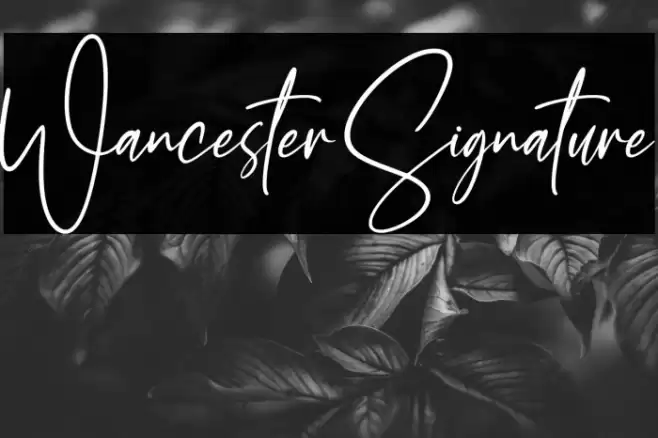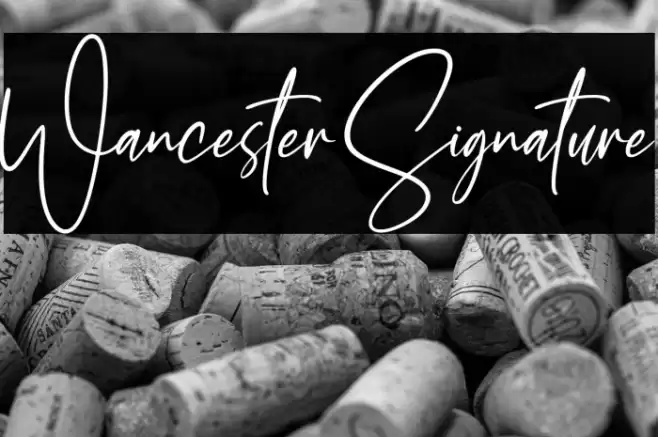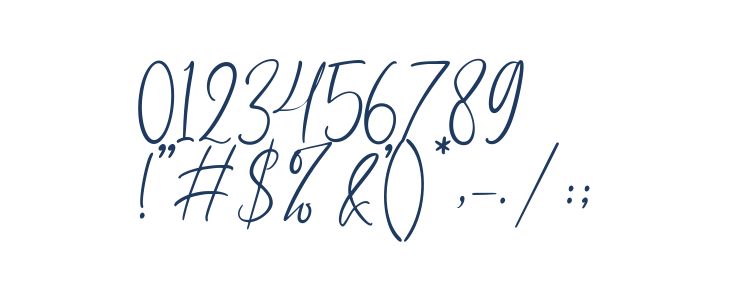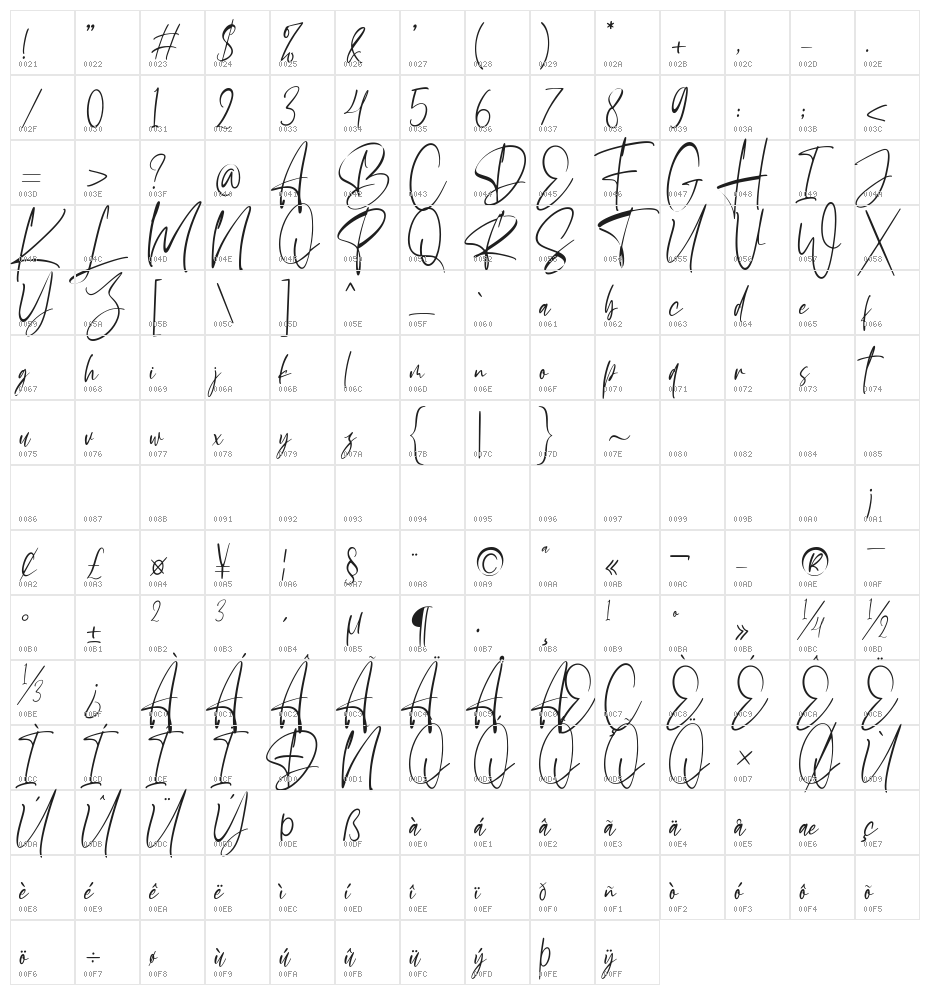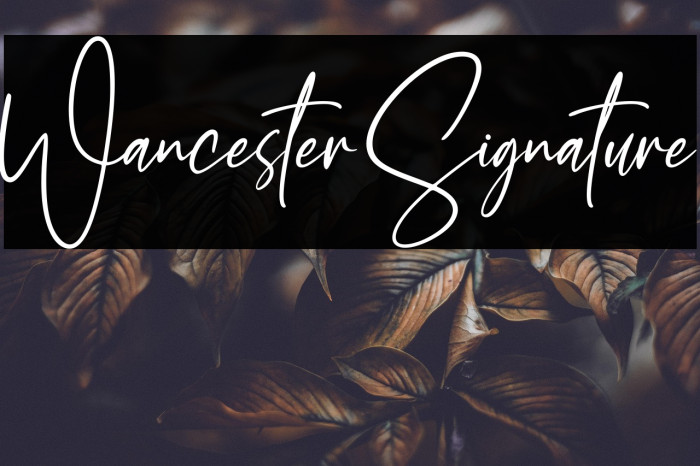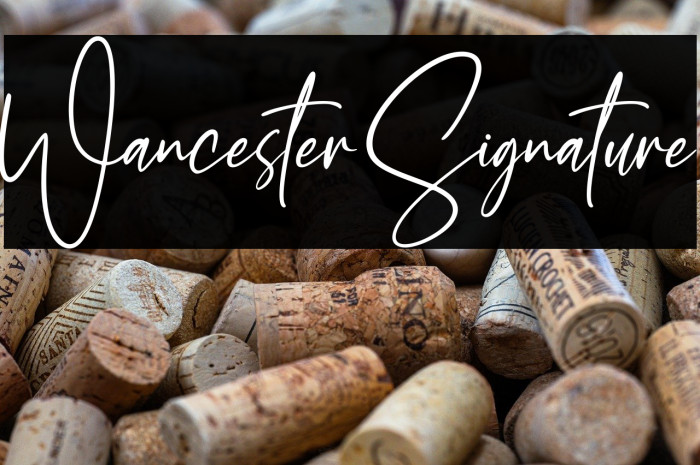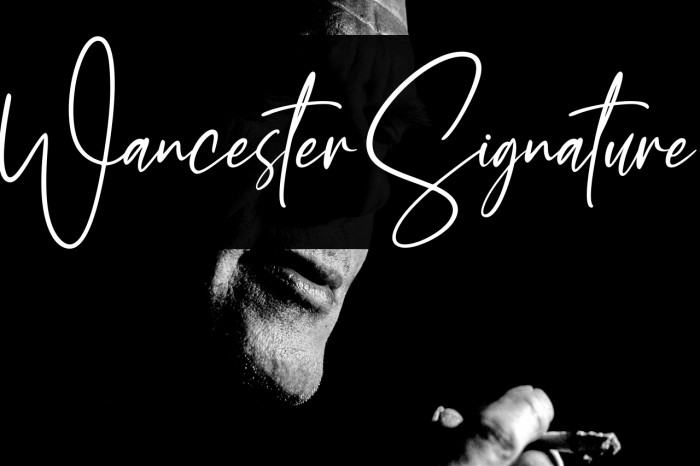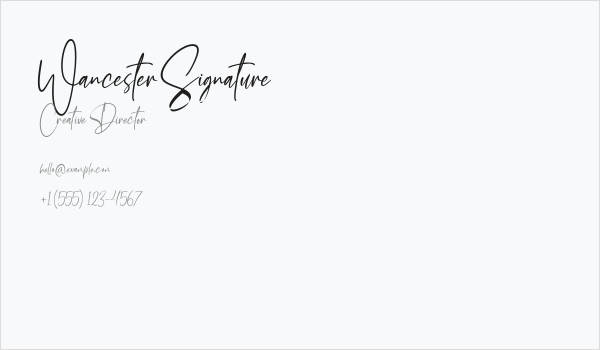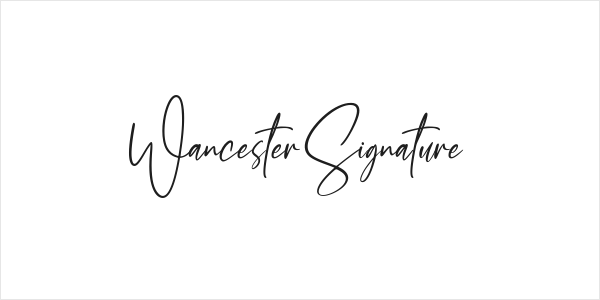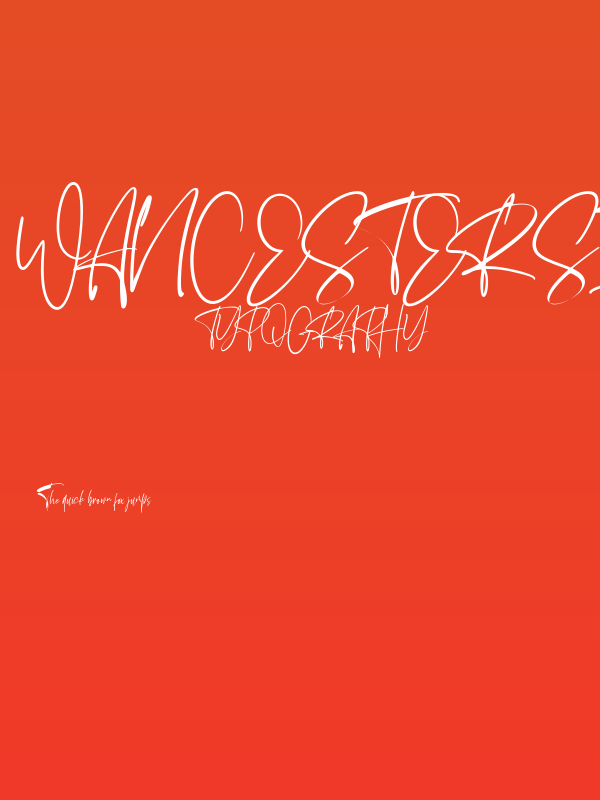
Wancester Signature Font
Wancester Signature Description
This font exudes a modern and elegant handwritten style, characterized by its fluid and cursive letterforms. The strokes are smooth and connected, giving it a natural and personal touch. The uppercase letters are bold and prominent, while the lowercase letters maintain a consistent flow, enhancing readability. The numerals and special characters are crafted with the same attention to detail, ensuring a cohesive look across all glyphs. This font is perfect for projects that require a personal or artistic flair, such as invitations, branding, or creative designs.
A modern, elegant handwritten font with fluid, cursive letterforms from Uncategorized fonts.
- Proposed Projects: Ideal for wedding invitations, personal branding, artistic projects, and creative designs.
- Overall Style: Modern, Elegant
- Use Case: Logos, Invitations, Artistic projects